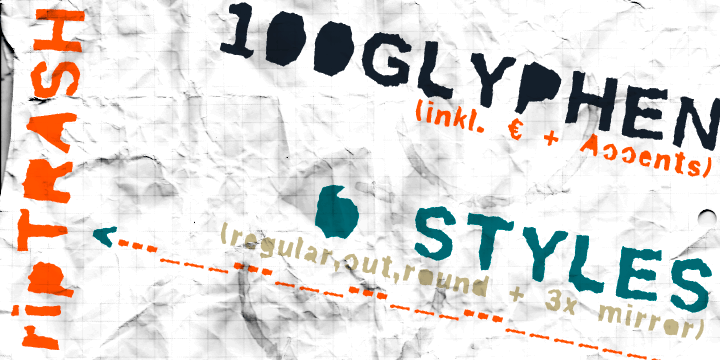
Like paper-cut, but spontaneous. Destroy, dirty, wild headline-font or deco-font.
Rip TRASH
Rip TRASHcut
Rip TRASHround
Rip TRASH Mirror
Rip TRASHround Mirror
Rip TRASHcut Mirror